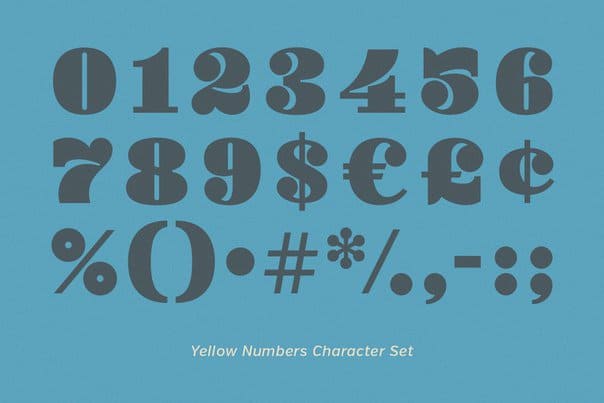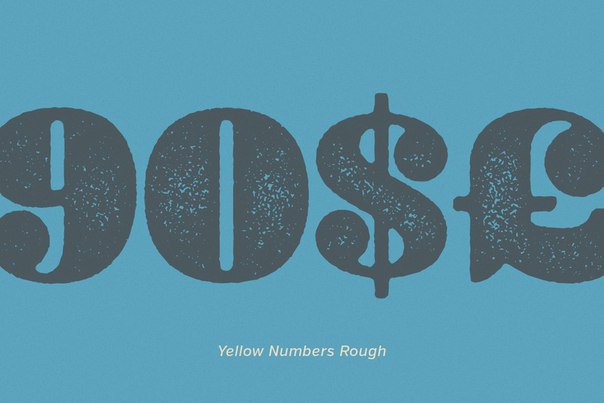
Yellow Numbers Font
Yellow Numbers Font is the proud member of the CSS family. This typeface is also utilized in HTML tags. This is also known as Blue number font. This is also present inside google fonts.
The definitely well-known content fabric author from bernier font the all right reserved for this stylish typeface. And he creates it for monetary rolling stone font present-day writing and comes. He has taken the idea from which modified into as fast as released. In this manner.
It has supported approximately 110 forms of global languages. Yellow Numbers Font Free Now that you could able to moreover be referred to as it the triumphing-day version of the qanelas soft font. Due to the fact now it has contained the entire historical factors with power. The complete letters together with this precise font feature top-notch based totally clearly in fact format.
A well-known typeface for people who love walking with lettering.